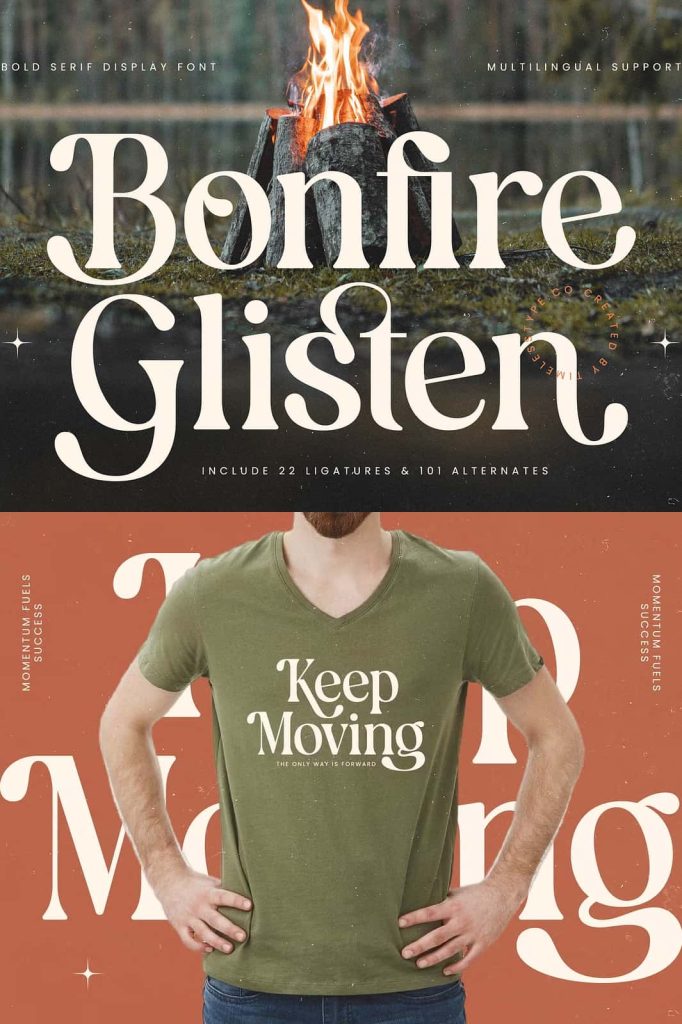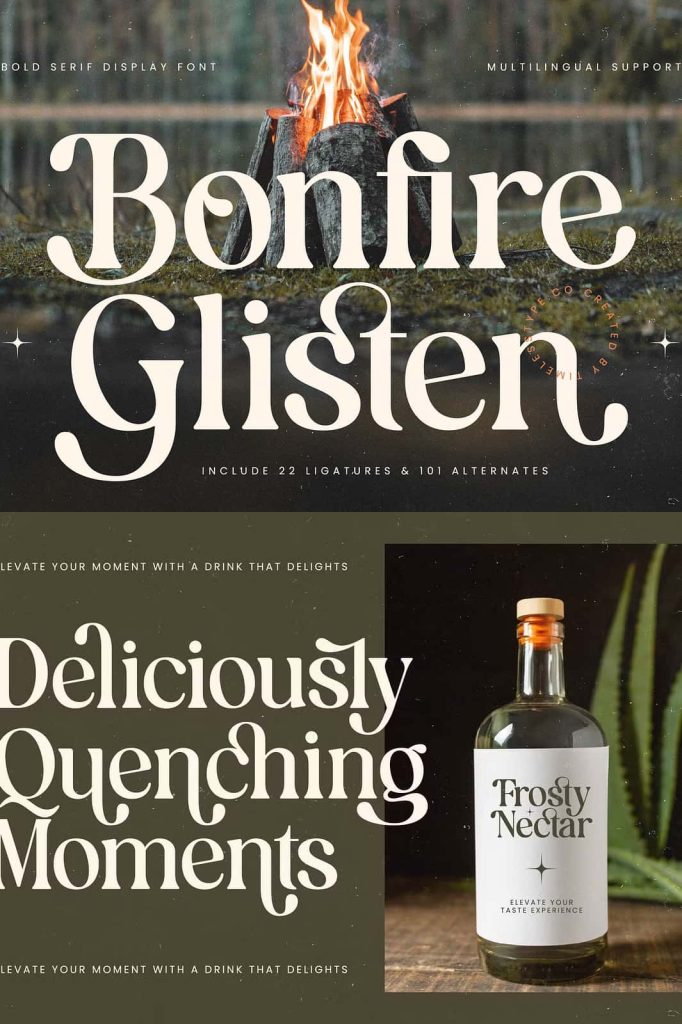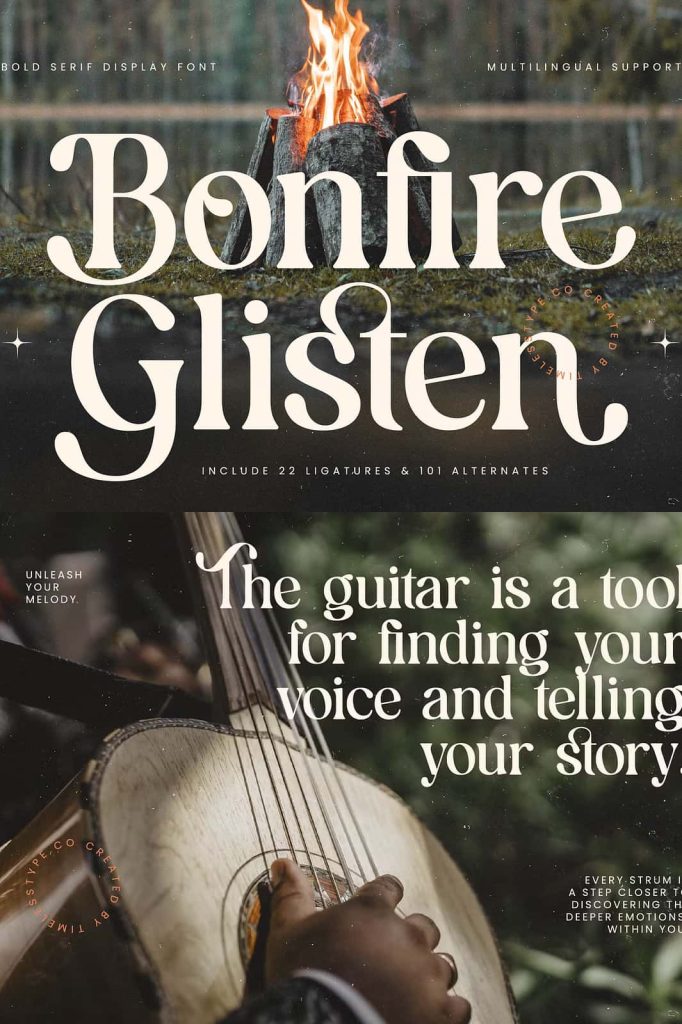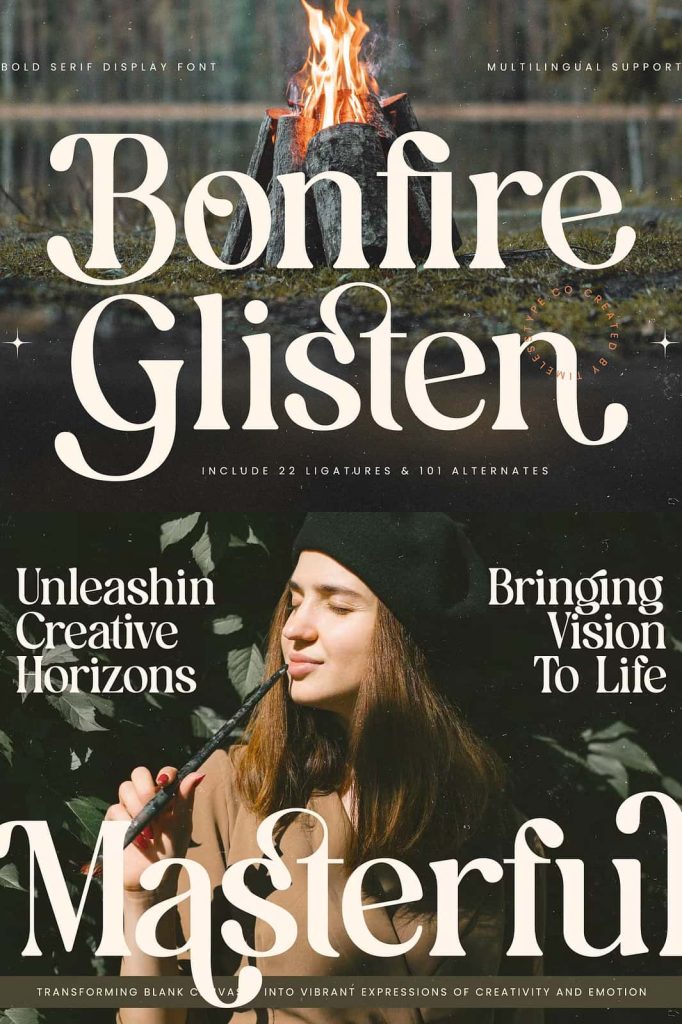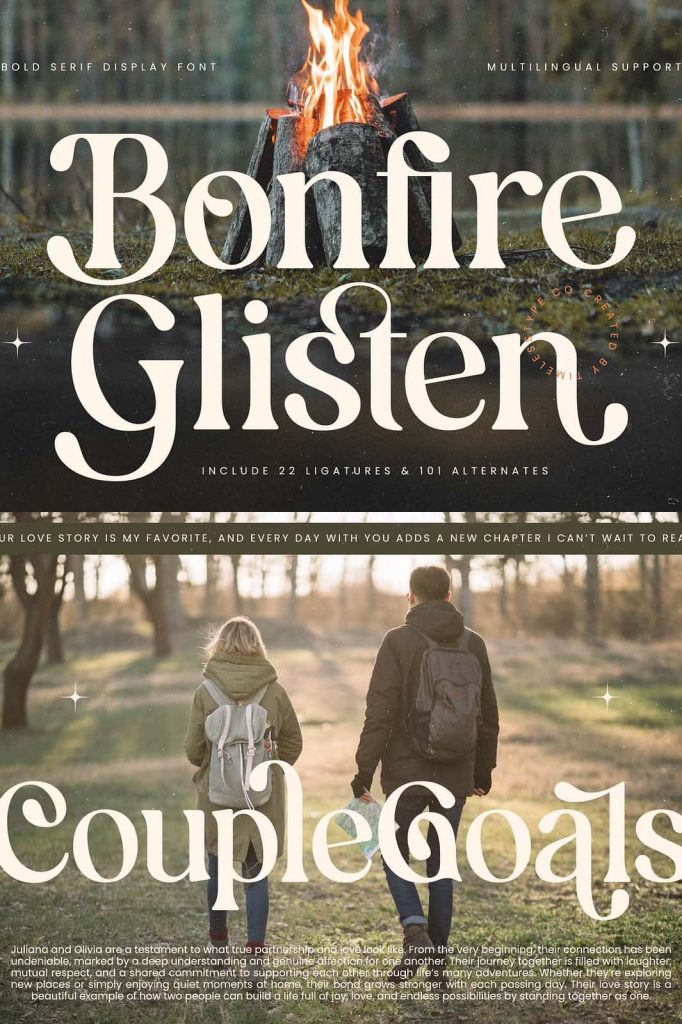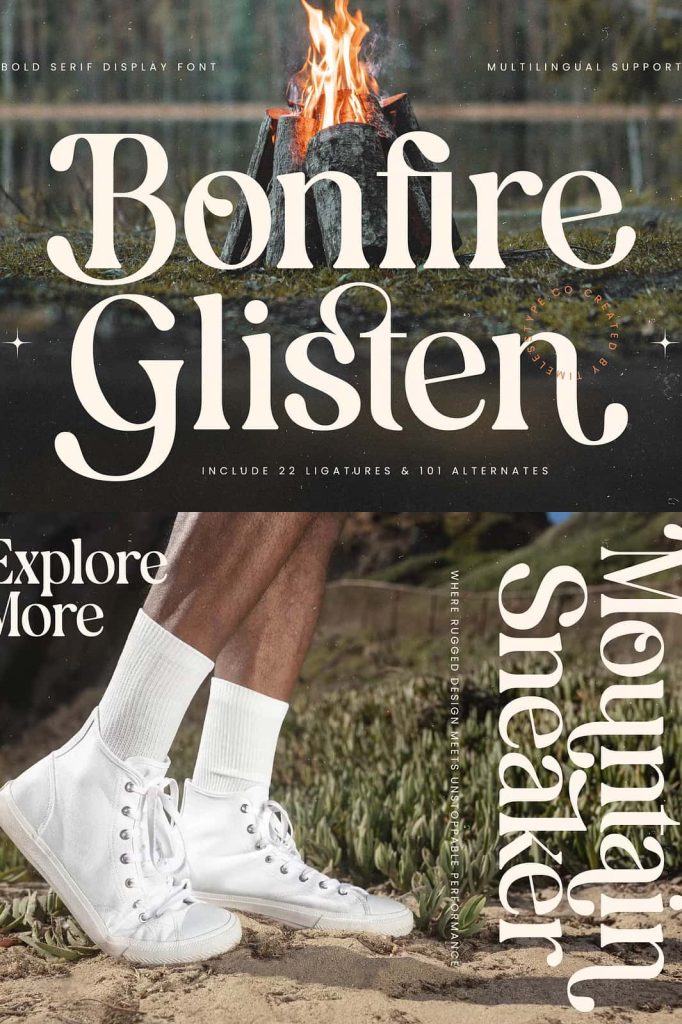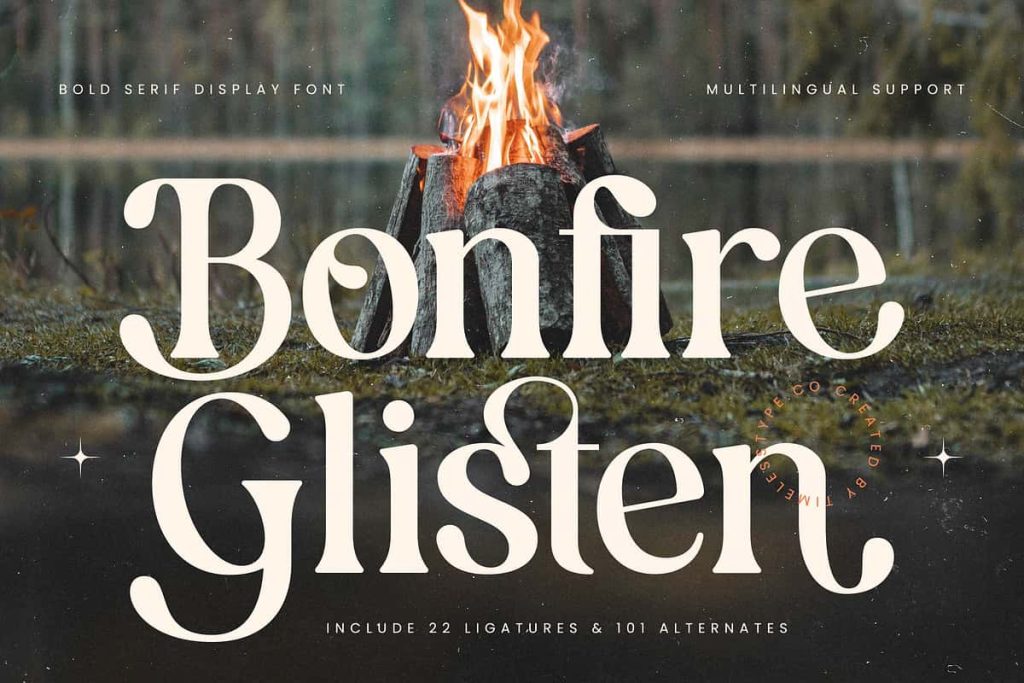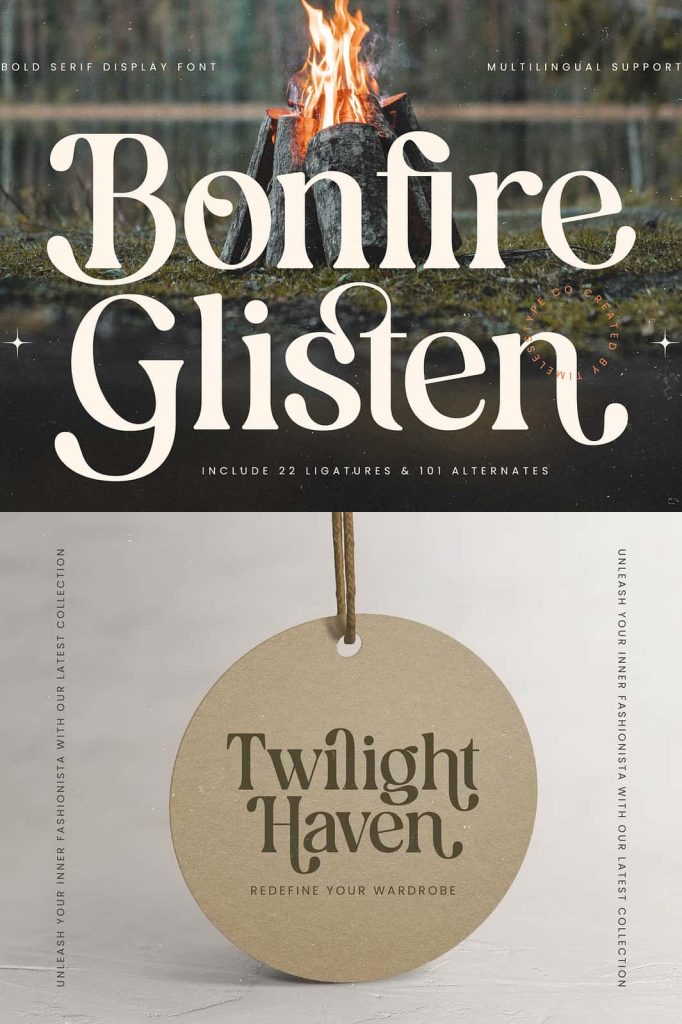
Bonfire Glisten – Bold Serif Display , from Timelesstype.Co , Suitable for any projects such as: logos, branding projects, homeware designs, product packaging, mugs, quotes, posters, shopping bags, t-shirts, book covers, name card, invitation cards, greeting cards, label, photography, watermark, special events, and all your other luxury and beautiful projects that need a Luxury Serif taste.